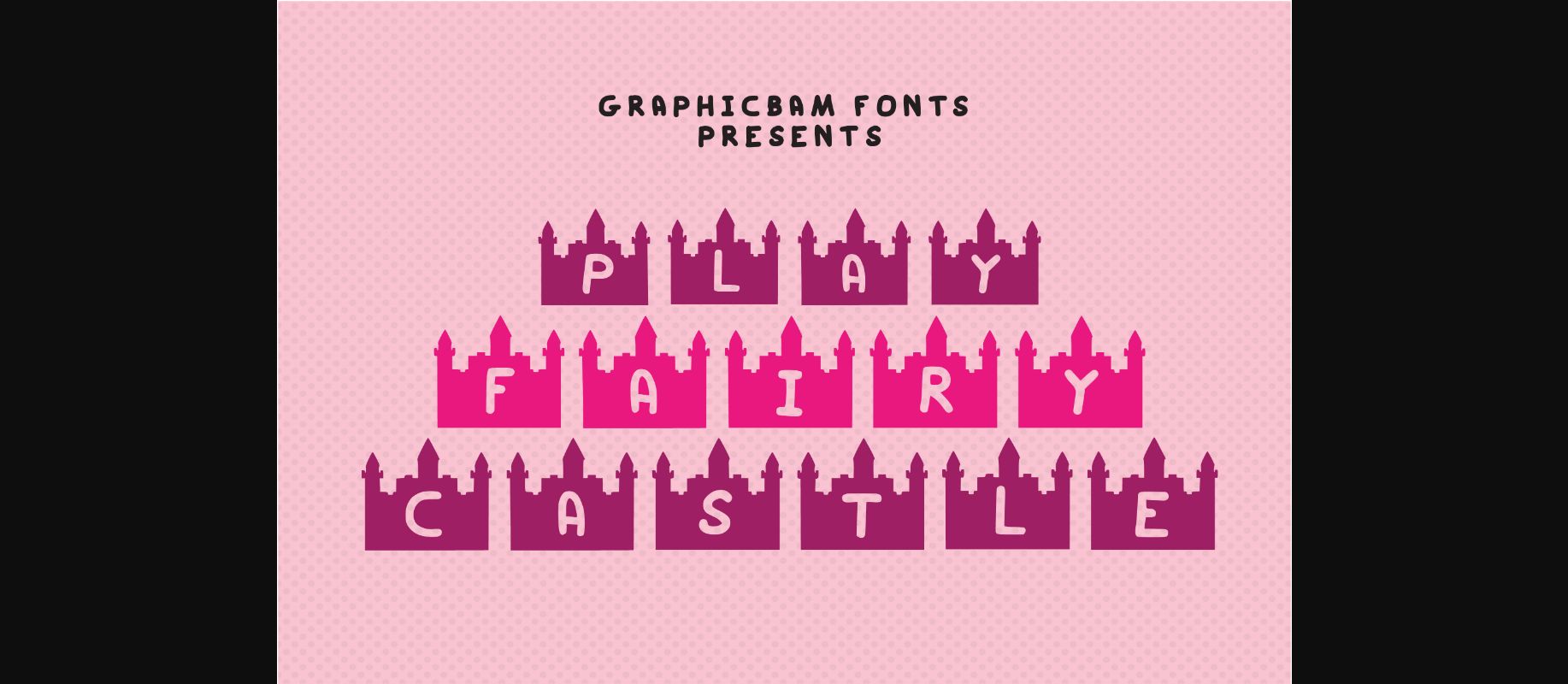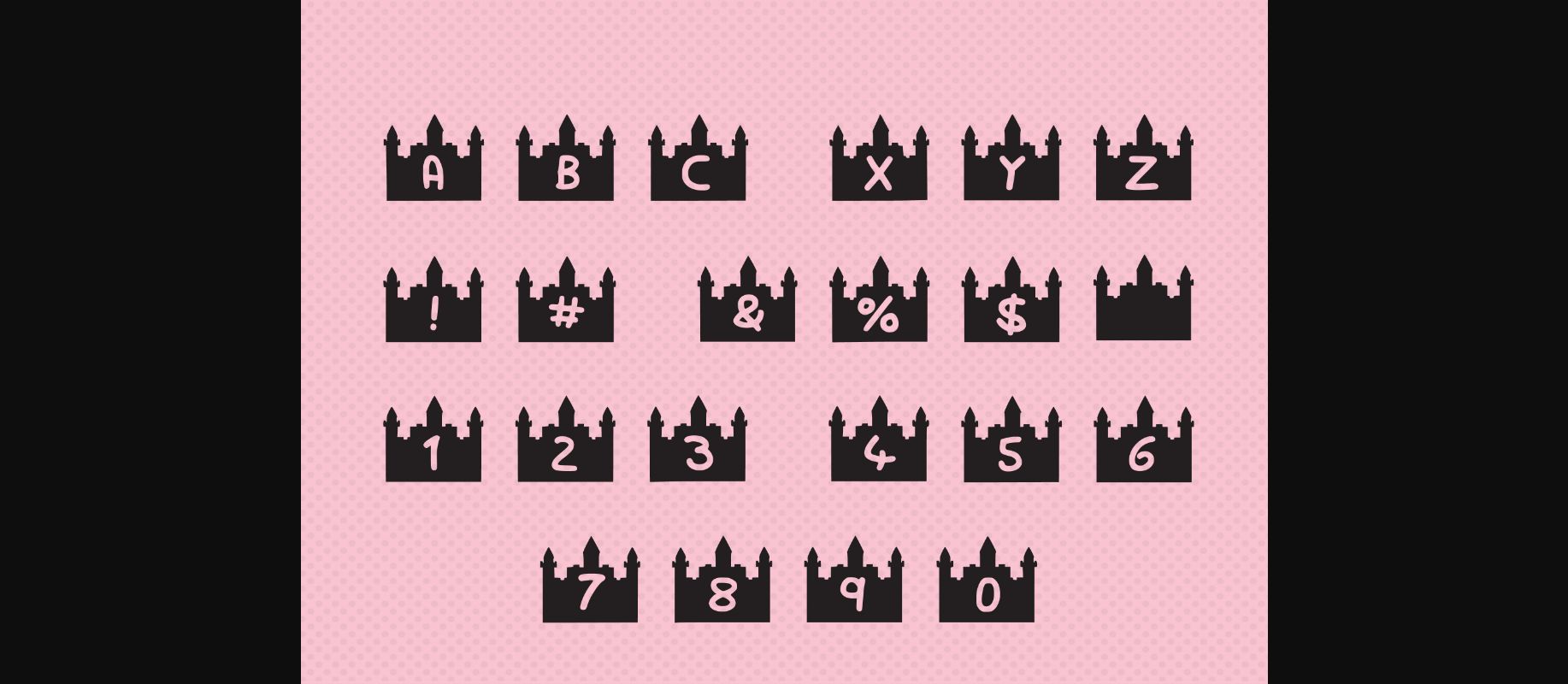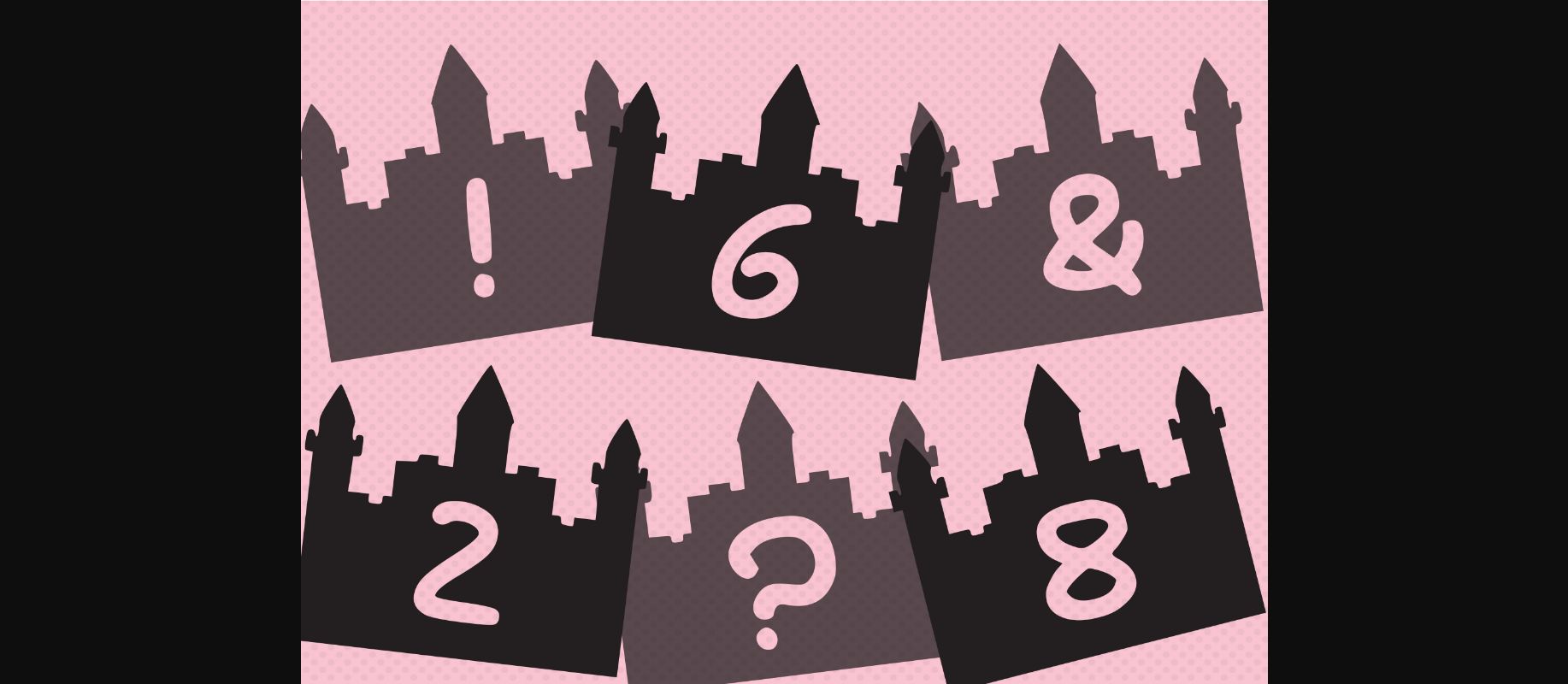
Play Fairy Castle Font
About Play Fairy Castle Font
Play Fairy Castle is a cool looking and interesting decorative font, featuring a castle on each character. No matter the topic, this font will be an incredible asset to your fonts’ library, as it has the potential to elevate any creation.